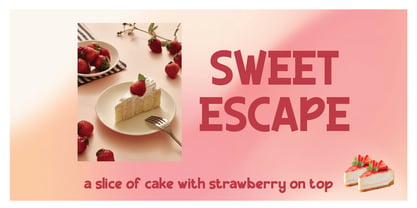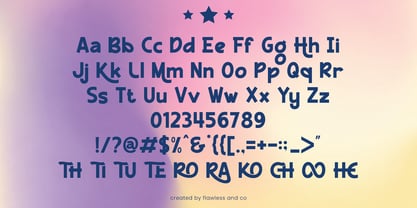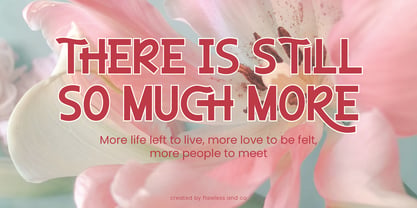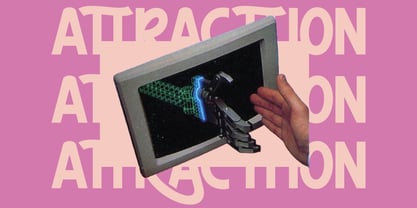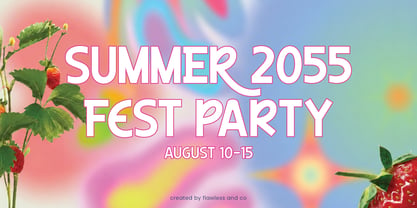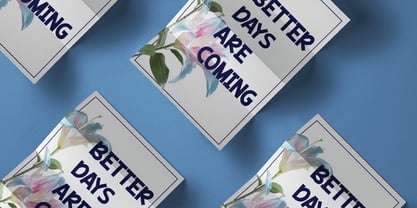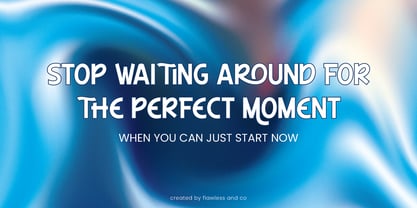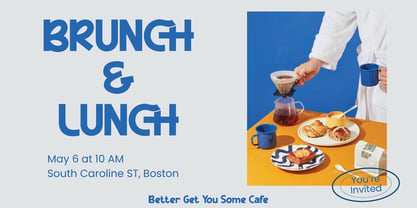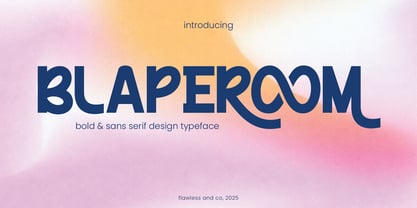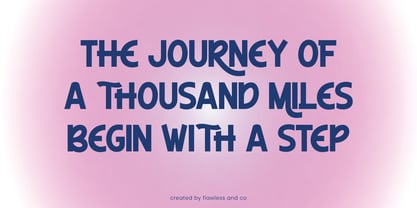
Blaperoom
Blaperoom is a powerful bold sans serif font built to command attention. With its thick strokes, clean lines, and modern geometry, Blaperoom is perfect for impactful headlines, branding, posters, logos, and digital content that needs a confident voice. Its straightforward, no-nonsense style makes it incredibly versatile, delivering clarity and strength across various design applications. Whether used in uppercase for maximum impact or mixed case for versatility, Blaperoom brings boldness and modernity to every project.
Features :
Multilingual, Uppercase alphabet A-Z, Lowercase alphabet a-z, Numbers 0-9, Some punctuation, Alternates & Ligatures